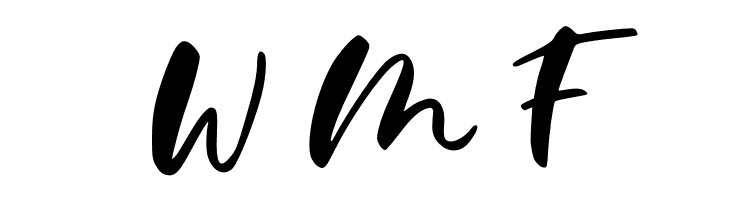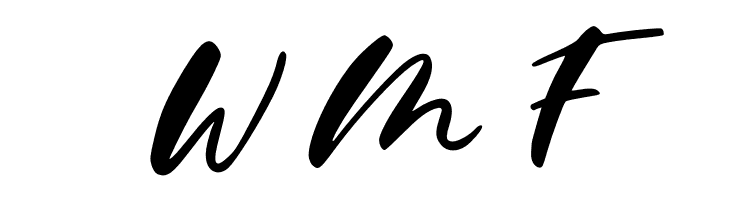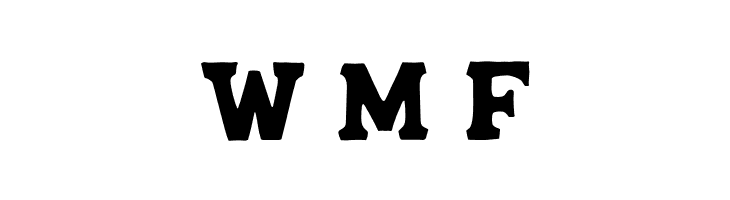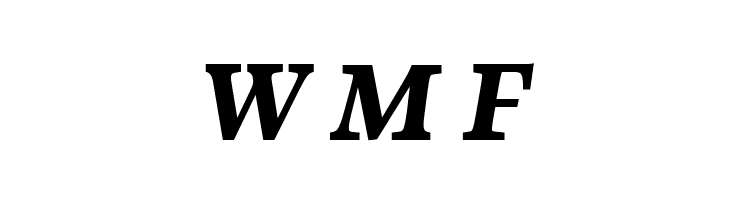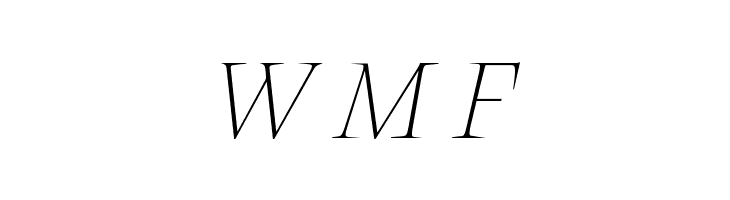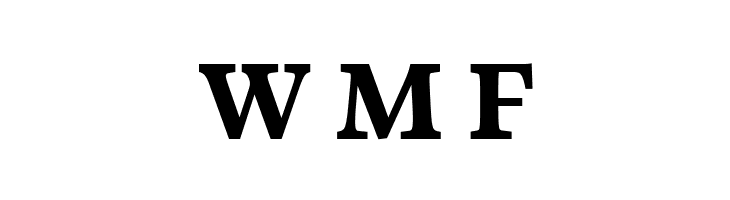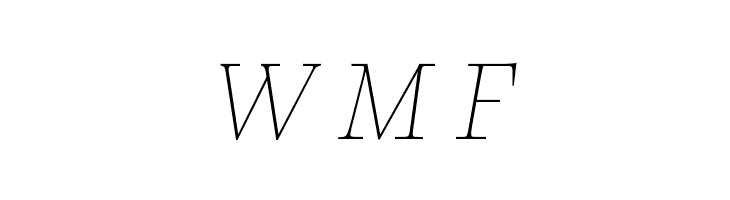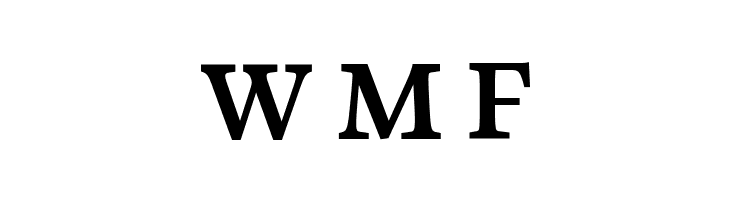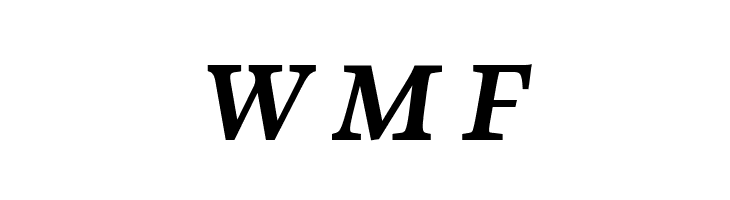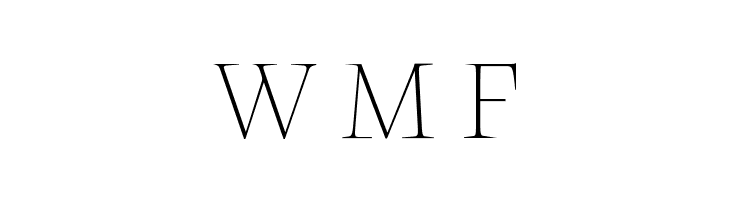
A classic serif font with semi-bold weight and elegant, sharp serifs.
A semi-bold, italic serif font with elegant and dynamic styling.
A refined serif font with thin strokes and high contrast, exuding elegance and sophistication.
A thin, italic serif font with a refined and elegant style.
An elegant and sophisticated italic typeface with graceful curves.
A refined serif font with elegant, elongated strokes and high contrast.
A refined italic serif font with elegant curves and classic styling.
A bold serif font with strong strokes and classic elegance.
A bold, italic serif font with a classic and elegant style.
A classic serif font with elegant strokes and a refined appearance.
Elegant serif font with a classic italic style.
A bold serif font with strong, thick strokes and a classic yet modern appeal.
A bold, italic serif font with a dynamic and elegant style.
A refined serif font with thin strokes and elegant design.
An elegant, extra-light italic serif font with refined curves and classic charm.
A classic italic serif font with elegant, flowing curves.
A refined serif font with elegant, thin strokes and classic proportions.
A refined, light, and italic font with elegant curves and a sophisticated style.
A classic serif font with a modern twist, offering elegance and sophistication.
A semi-bold serif font with a classic yet modern appeal.
A semi-bold italic font with elegant curves and a refined slant.
A refined serif font with thin, elegant strokes and a modern aesthetic.
A thin, italicized typeface with a modern and elegant style.
A bold, vintage-inspired serif font with strong, blocky serifs and consistent stroke weight.
A playful and elegant handwritten script font with flowing cursive lines.
A decorative script font with elegant loops and swirls.
A bold, brush-style font with dynamic strokes and a modern, artistic flair.
A bold, brush-style font with dynamic, expressive strokes.
A sleek, modern script font with thin, elegant strokes.
A bold, expressive handwritten font with fluid strokes and a natural flow.
A bold, expressive script font with a fluid, handwritten style.
A modern, minimalist font with thin, uniform strokes and excellent readability.
A bold, geometric font with sharp edges and a modern style.
A bold, dramatic blackletter font with intricate Gothic detailing.